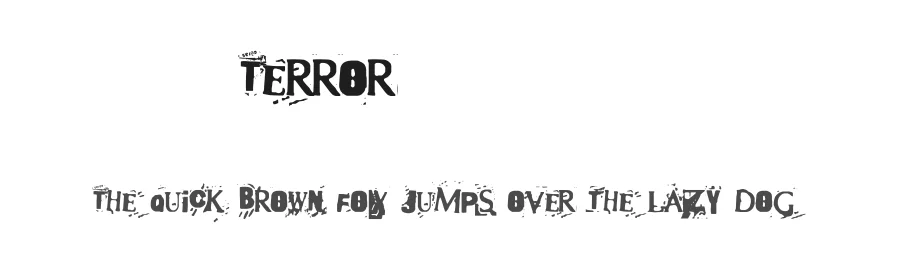
About Caricature Font
Caricature is a decorative font designed by Magix.L. It includes 104 glyphs, a regular weight, TTF (TrueType) format, and 111 languages. Caricature is free to download; check the license details on this page before commercial use. Decorative fonts like Caricature work best for logos, posters, packaging, and standout headlines.
Caricature Font is a decorative font that shines as a display or heading face. Pair it with a clean sans-serif or serif font for body text β the contrast creates a clear hierarchy while the two styles stay balanced and easy to read.
Caricature Font
by Magix.L
Caricature Font is a decorative typeface by Magix.L, ideal for logos, invitations, branding, and creative projects.